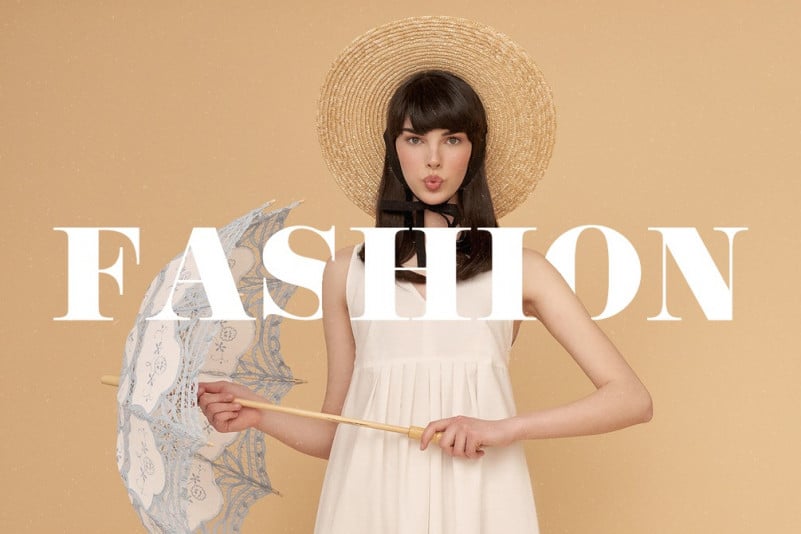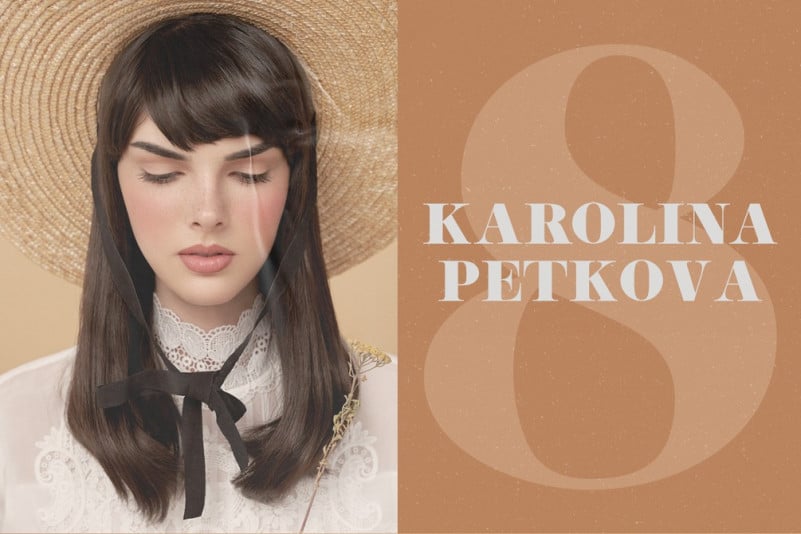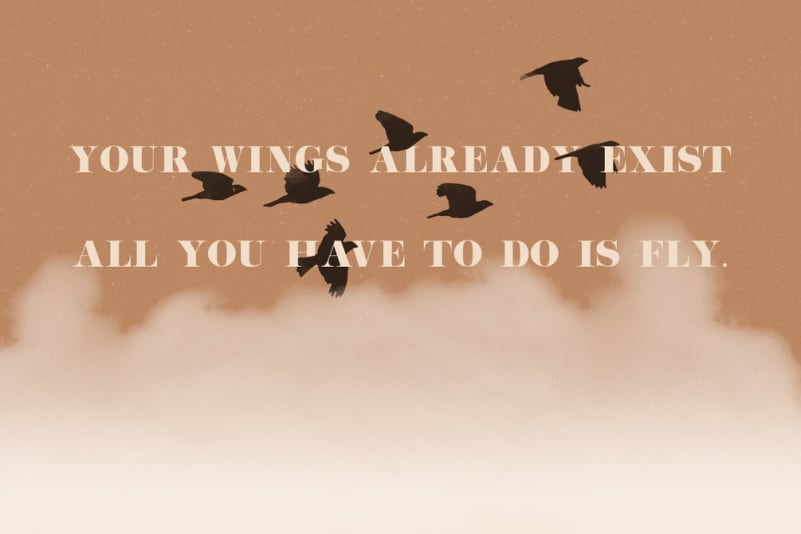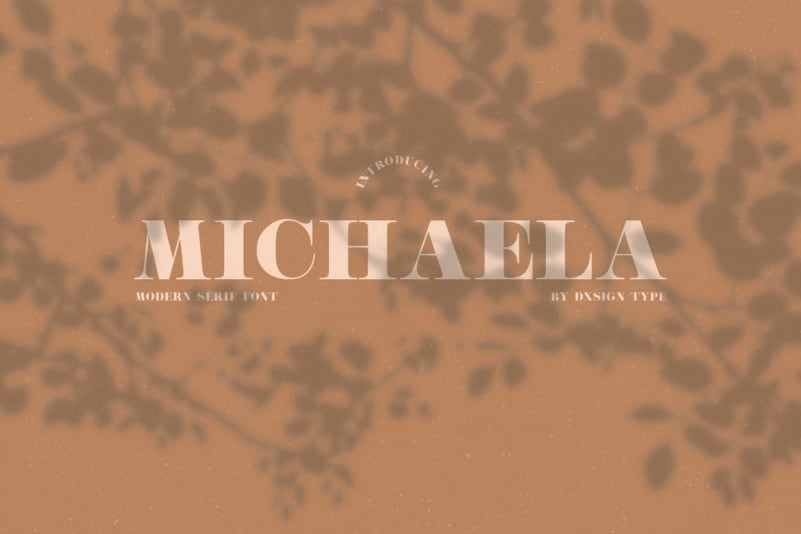
Michaela Serif Font
Michaela Serif Font is a vintage serif typeface. Sharp and precise, It’s a versatile and strong font. This font is designed and shared by dxsign. Made for any professional project branding. It is the best for branding, printing, wedding and quotes. Michaela offers many possibilities to be applied in many graphic or editorial projects. Every letter has a unique and beautiful touch.